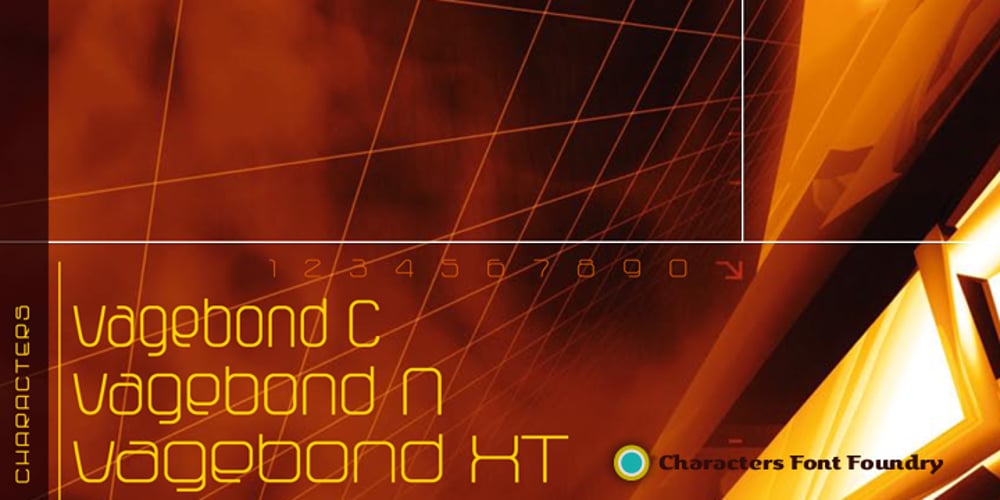
Vagebond
Vagebond font
Vagebond Font Family was designed by René Verkaart and published by Characters Font Foundry. Vagebond contains 4 styles and family package options. Vagebond is a monoline family in three widths, Condensed (C), Normal (N), and Extended (XT). With Vagebond I was inspired by a very old television I once saw on a junkyard. I wanted to create a typeface with round edges that would fit within the 4 x 3 proportion of the screen. It had to be monoline, because that gives it a very simplistic and minimalistic look. Having created the XT width I felt it needed the both complementing widths to make it complete. The Condensed version, for me, is the funky rounded version of the DIN. I love DIN, but it sometimes feels just a bit to ‘normed’ for me. Vagebond C brings in a bit more personality. Although Vagebond looks kinda ‘oldstyle’, it works very well in futuristic designs. It feels best in combination with a super futuristic 3d object.